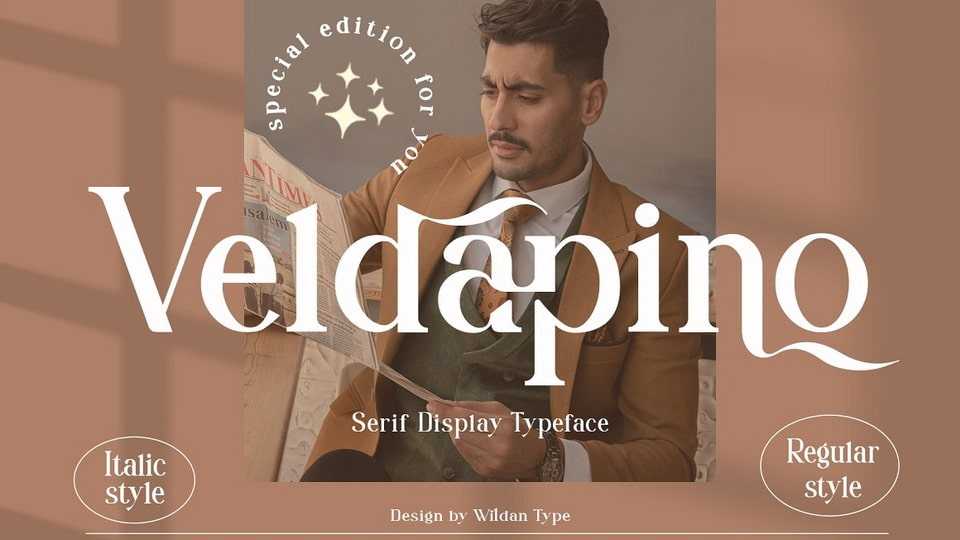
Download Veldapino font, a display serif typeface. It is luxury and classy. With beautiful fill Veldapino is great for logotypes, wedding invitations, romantic cards, labels, packaging, spelling of names and others.
Designer: Wildan Type